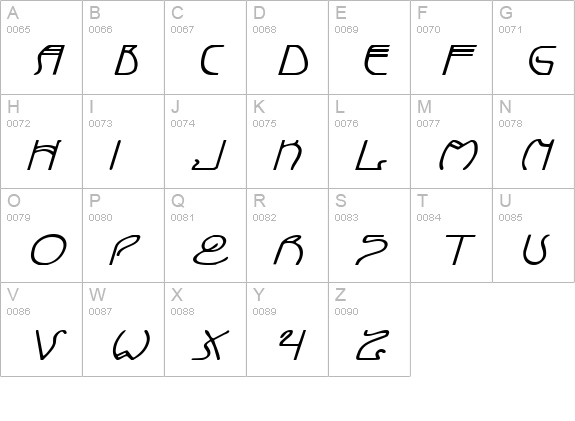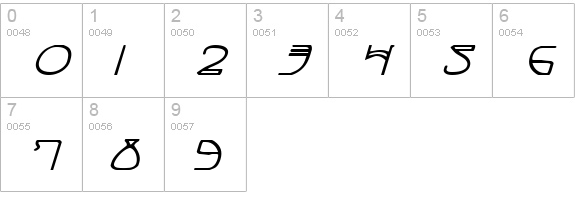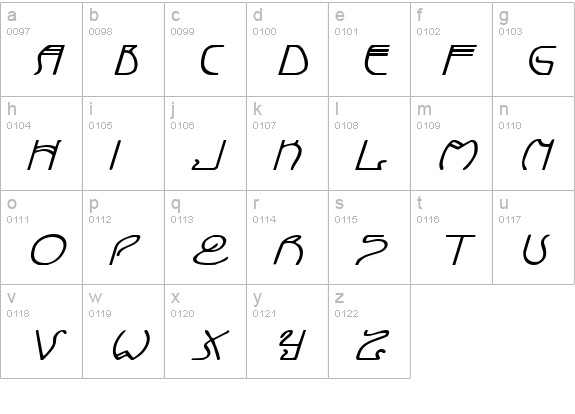
Coyote Deco ExpItal font is a stylish and eye-catching typeface that combines elements of art deco with a touch of modern flair. Its unique design features sharp angles and geometric shapes that evoke a sense of sophistication and elegance. This font is perfect for adding a contemporary edge to your designs, whether you're working on a branding project, poster, or website. Its versatility allows it to be used in a variety of contexts, from headlines to body text. Best of all, Coyote Deco ExpItal font is available for free download at FontsMarket.com. So you can easily add this striking typeface to your collection without any cost. Don't miss out on the opportunity to enhance your projects with the distinctive charm of Coyote Deco ExpItal font.